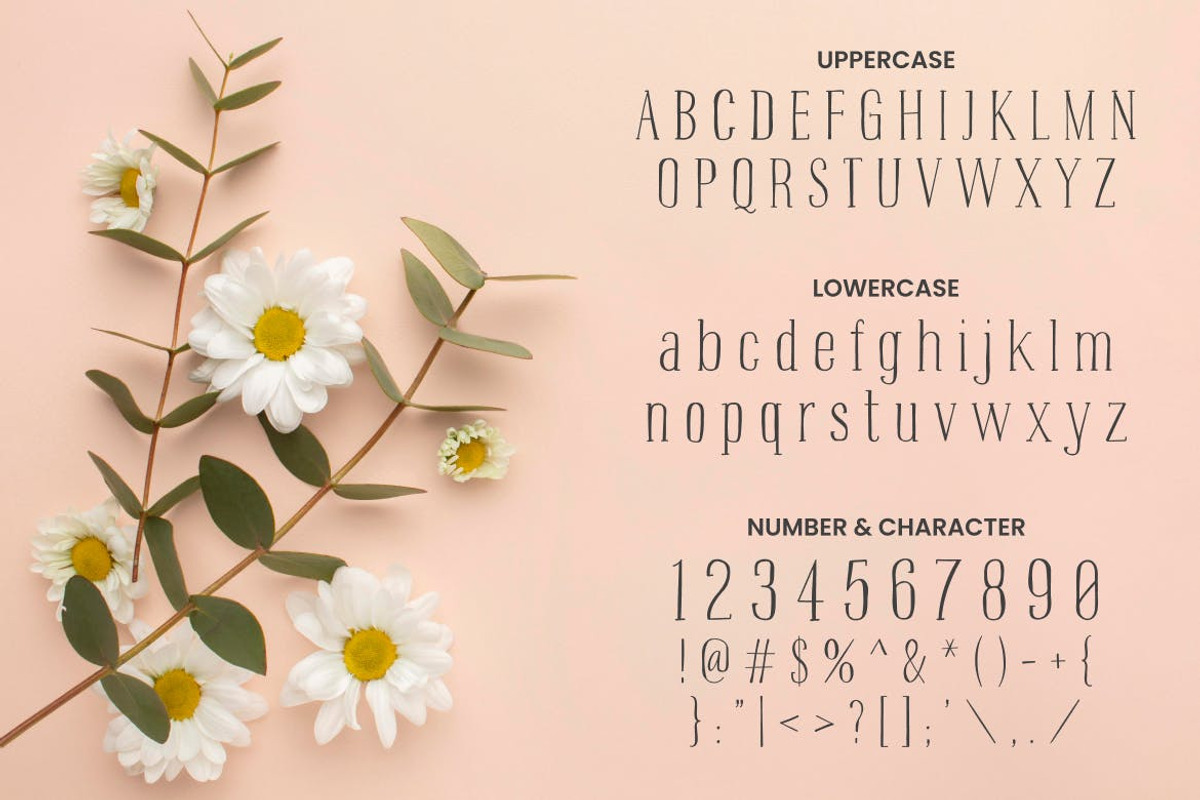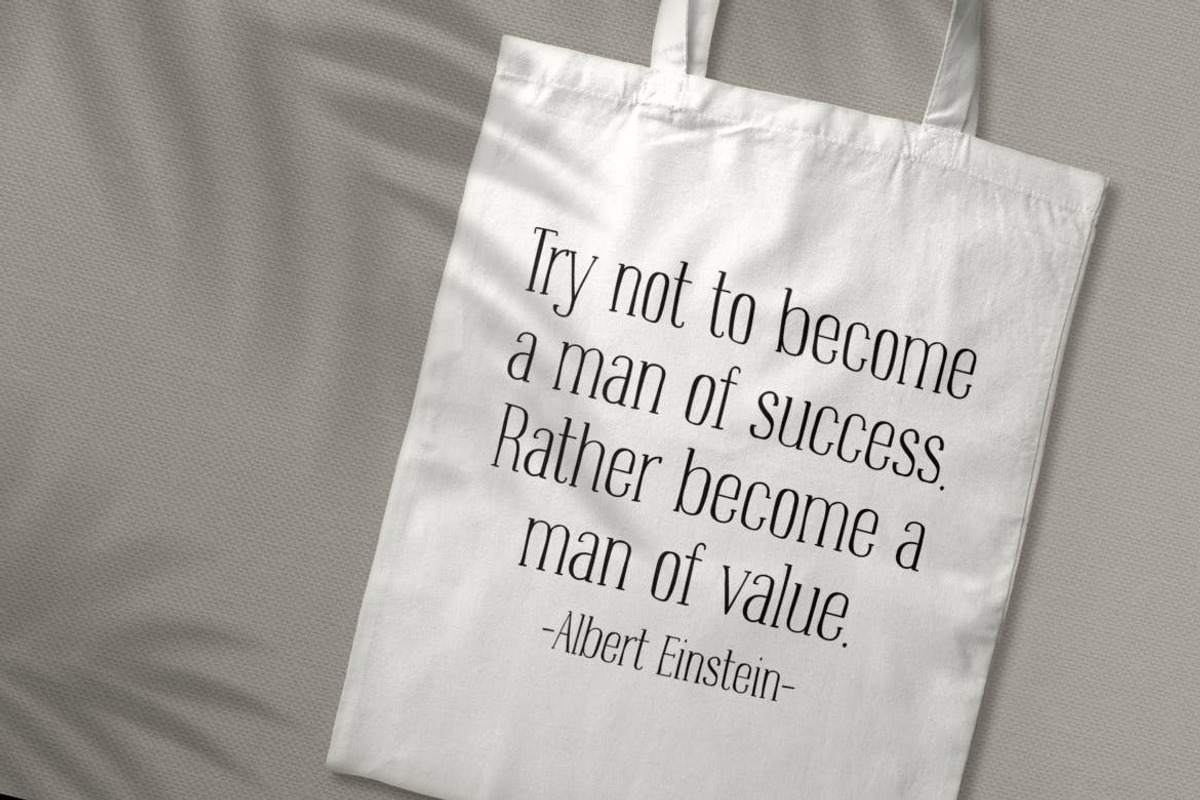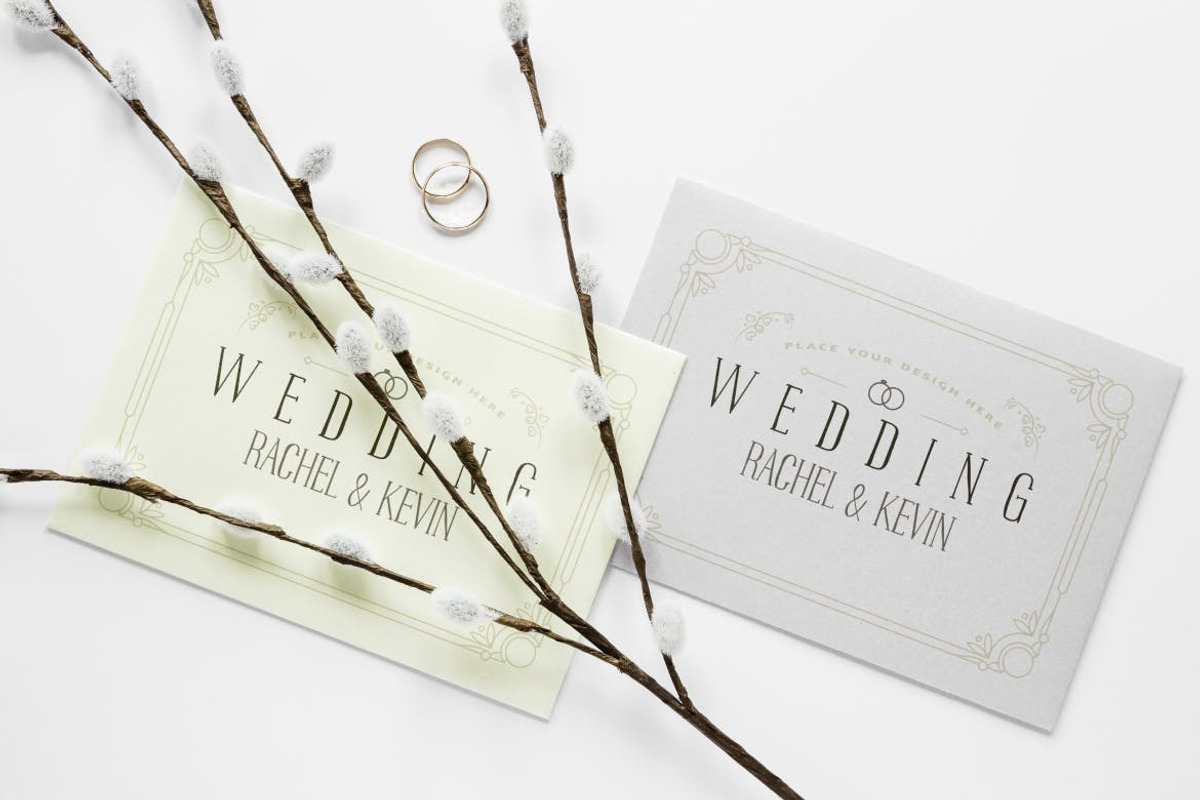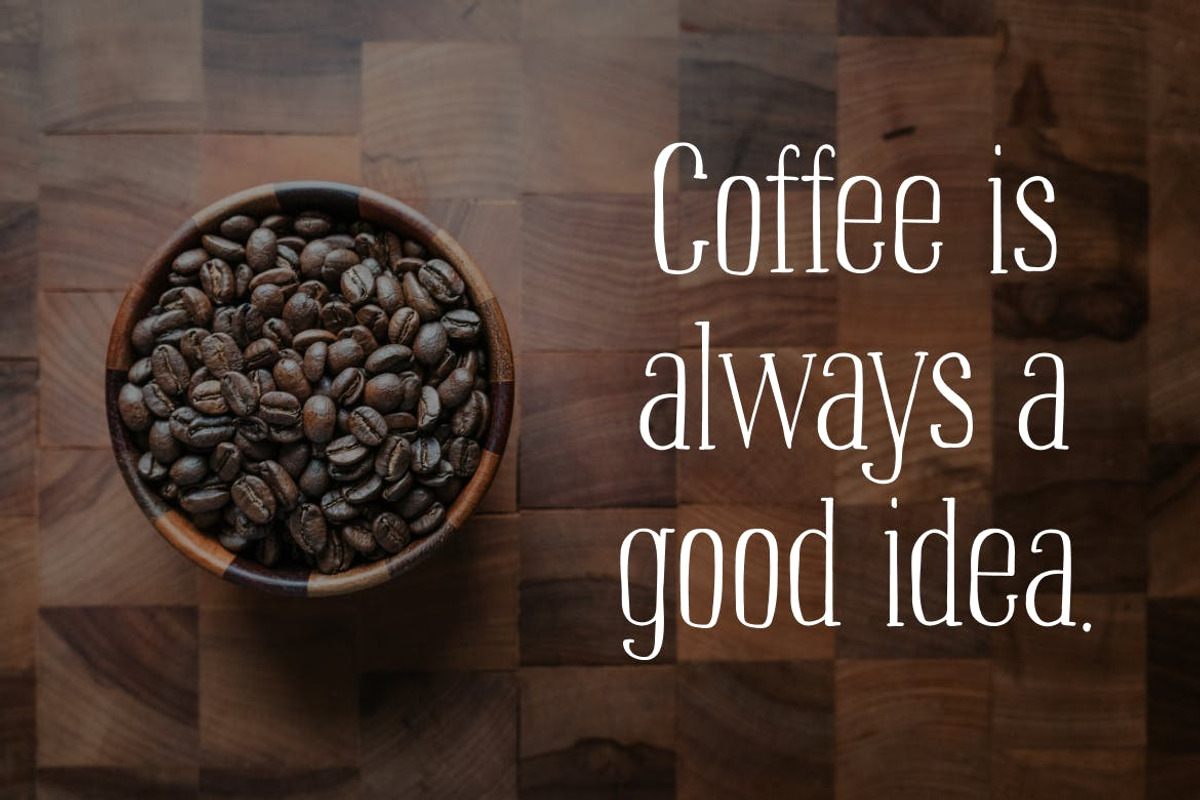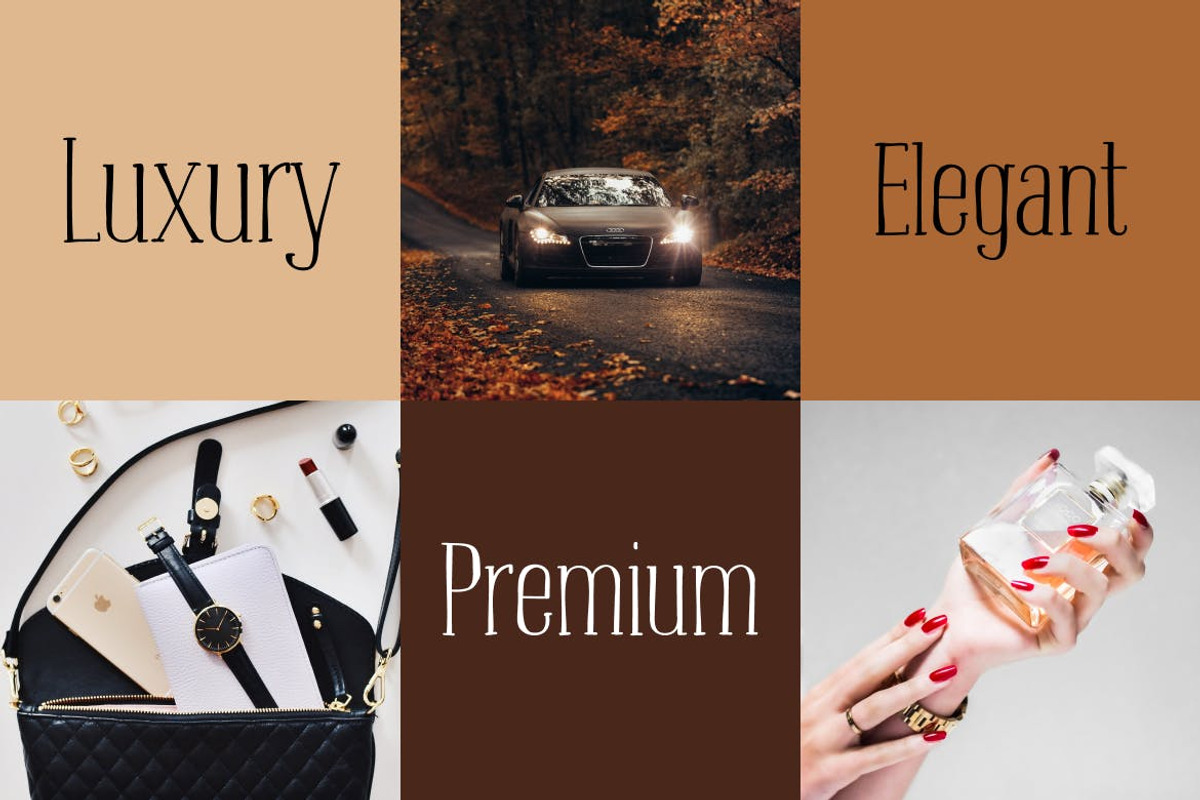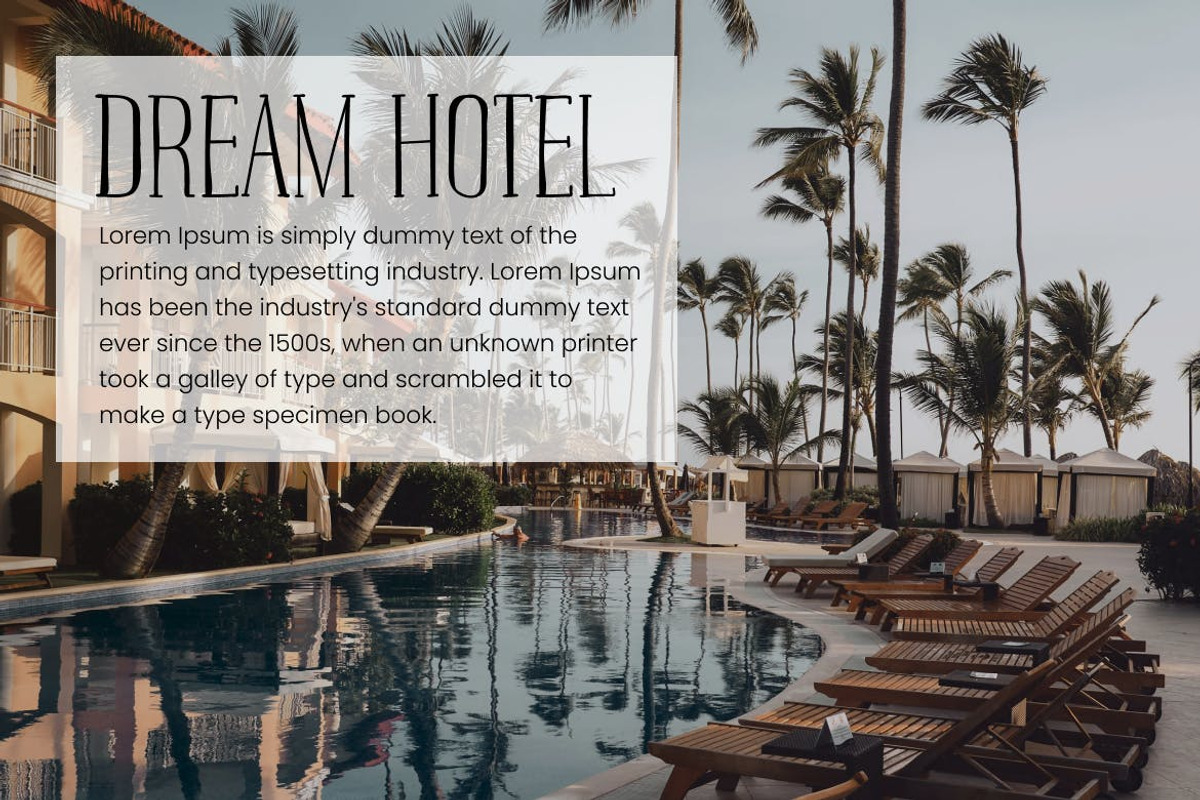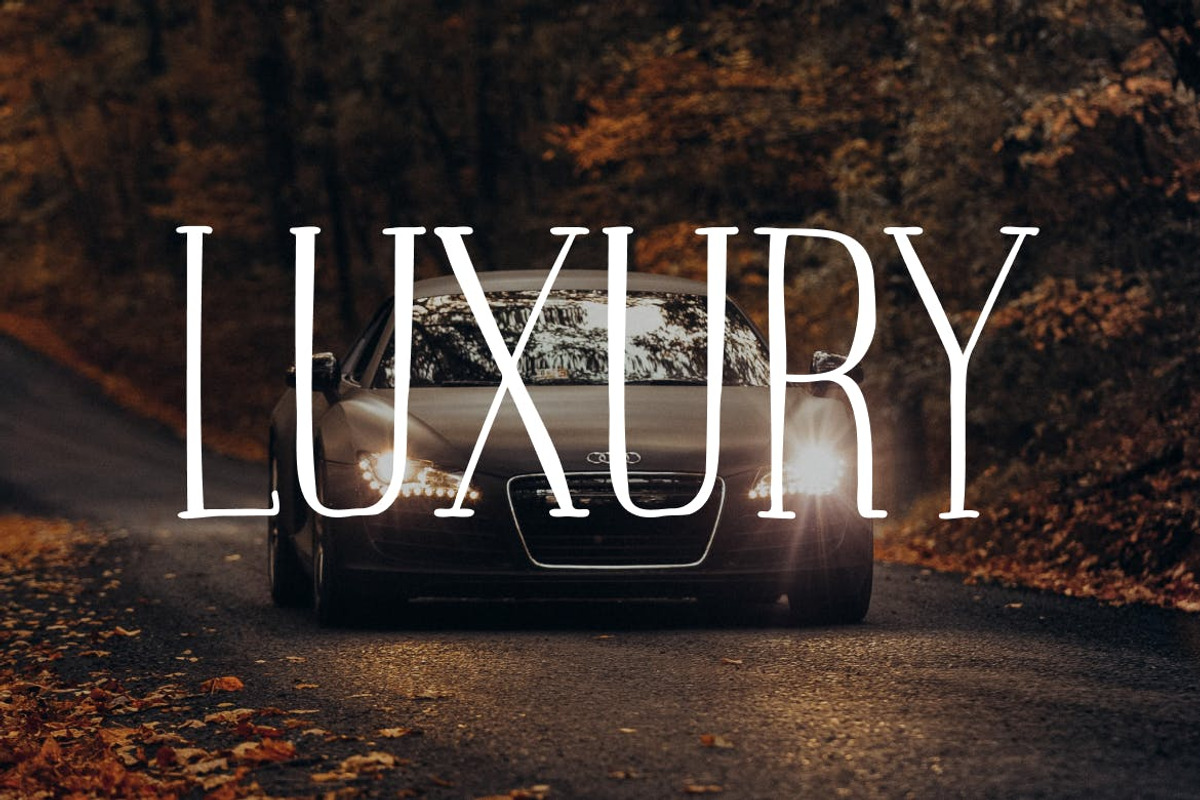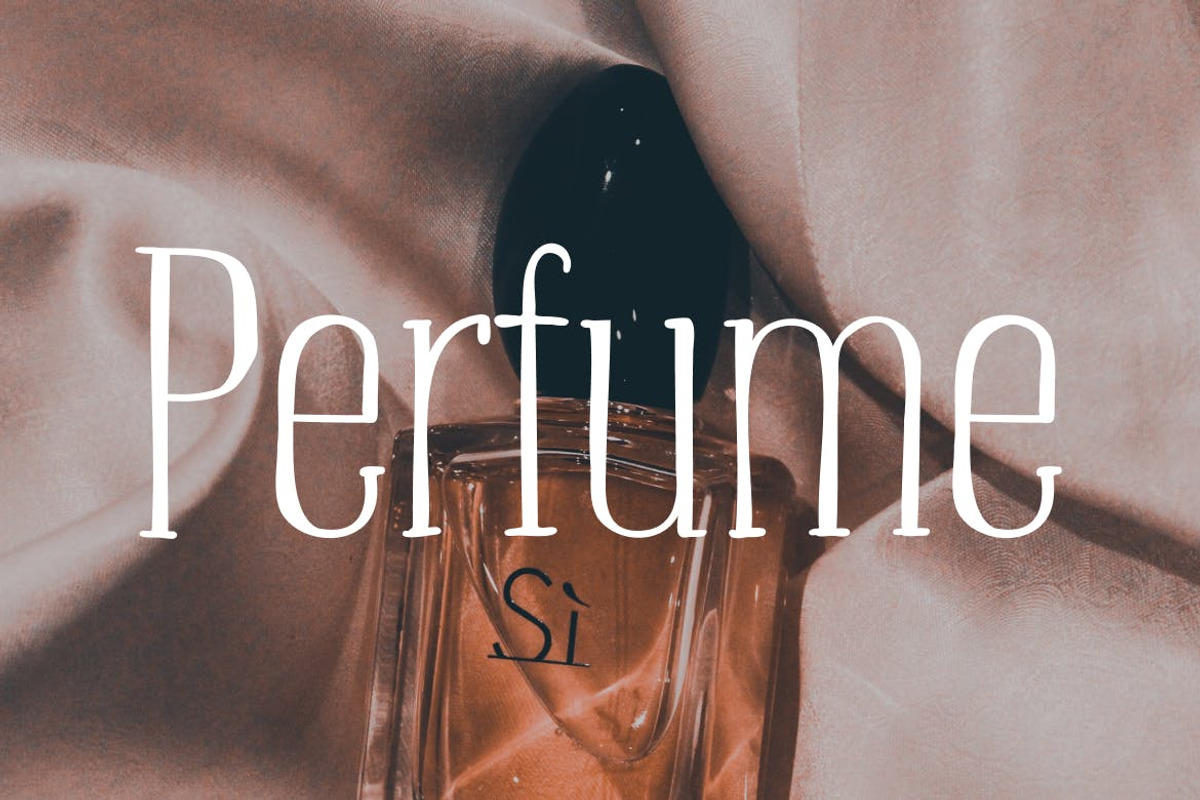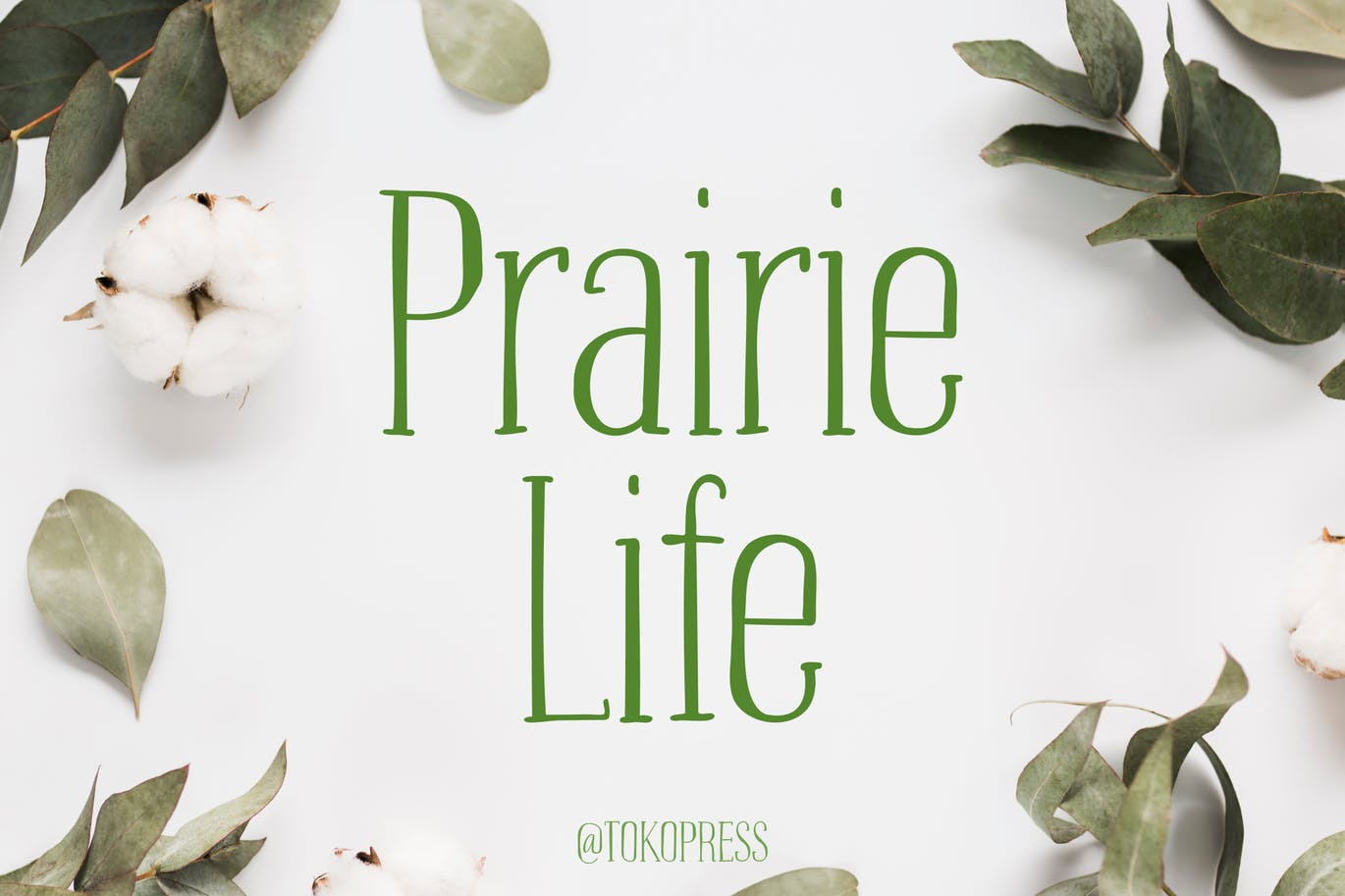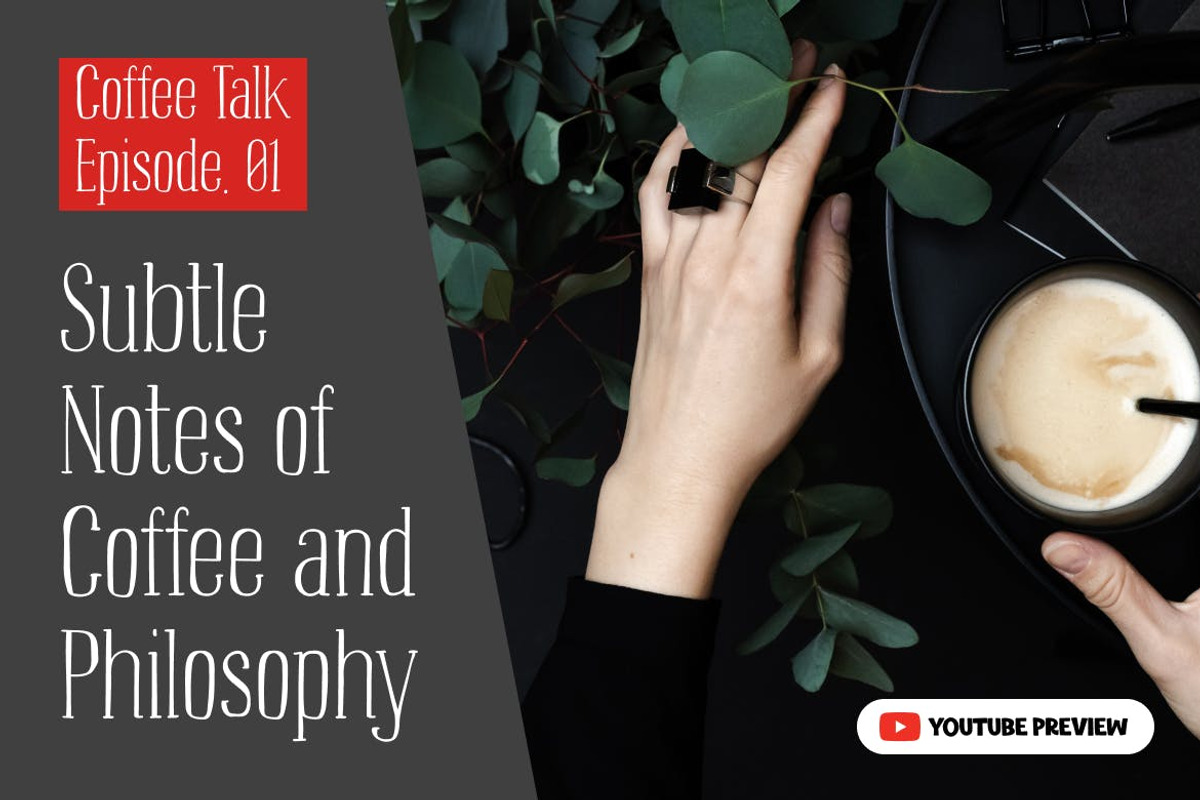
Prairie Life – Cute font
Prairie Life- Cute font
It brings elegance, beauty, and a calming ambience to the audience.
Suit perfectly for female segmented magazine, poster, movie title, music poster, youtube covers, youtube thumbnails, social media page covers and so on...